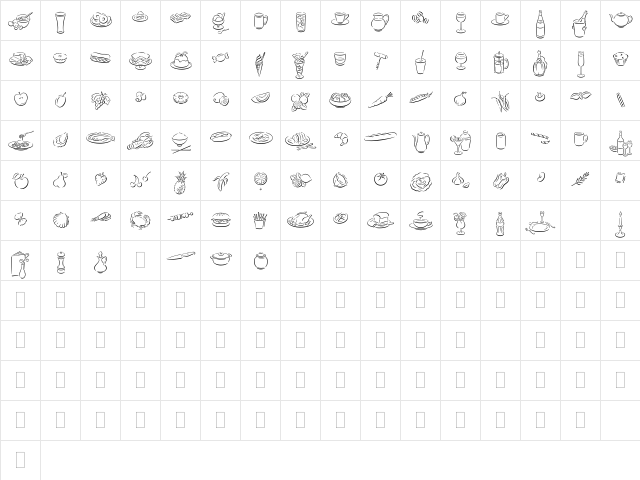
DF Delectables Regular Font Preview
DF Delectables Regular
DF Delectables Regular Font Details
| Foundry | International Typeface Corporation |
| Designer | Carol Kemp |
Design Context for DF Delectables Typeface
DF Delectables is a composed and adaptable typeface that performs quietly and consistently across a wide range of design contexts.